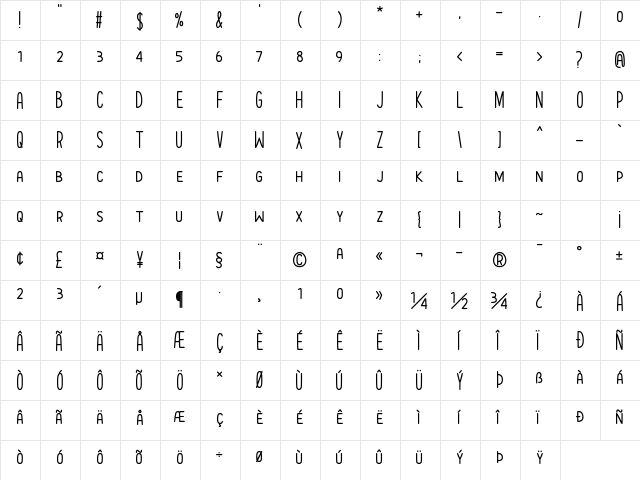
Im Spiegelland Regular
Design Context for Im Spiegelland Typeface
Im Spiegelland offers clean, dependable letterforms without strong stylistic allegiance, making it a practical choice for designers who need flexibility.